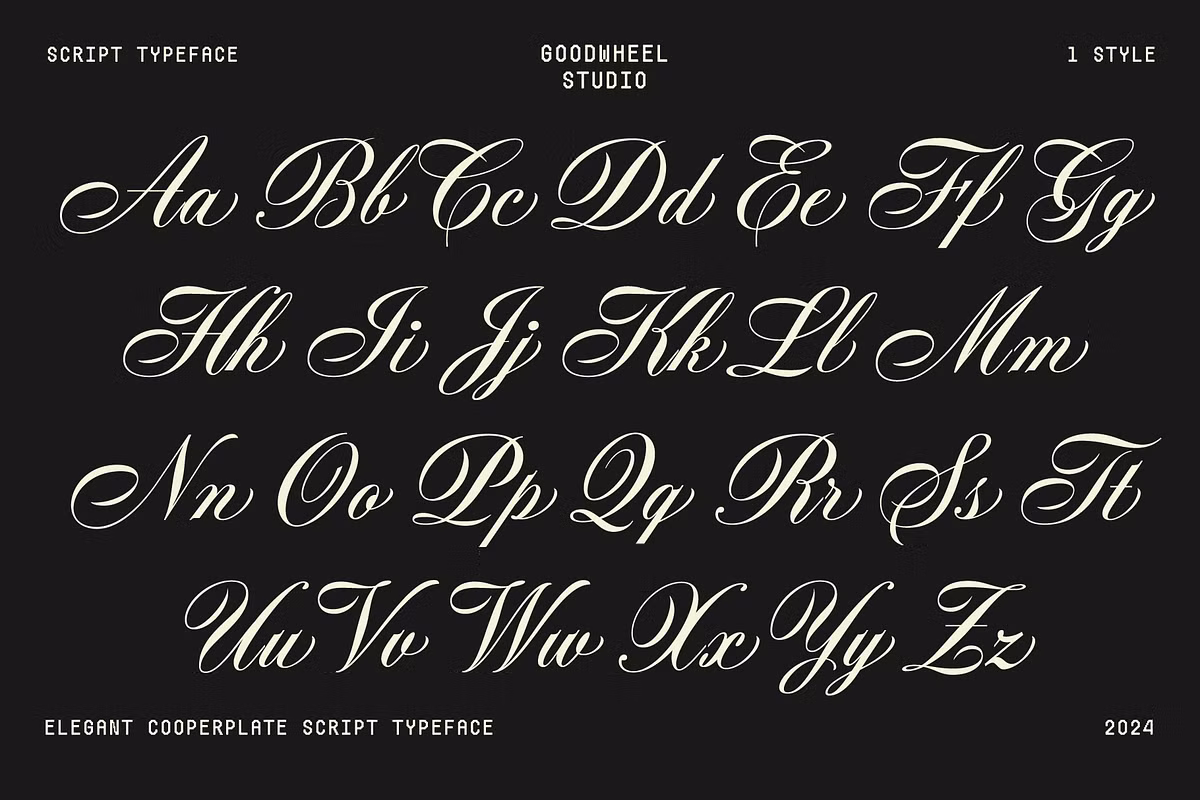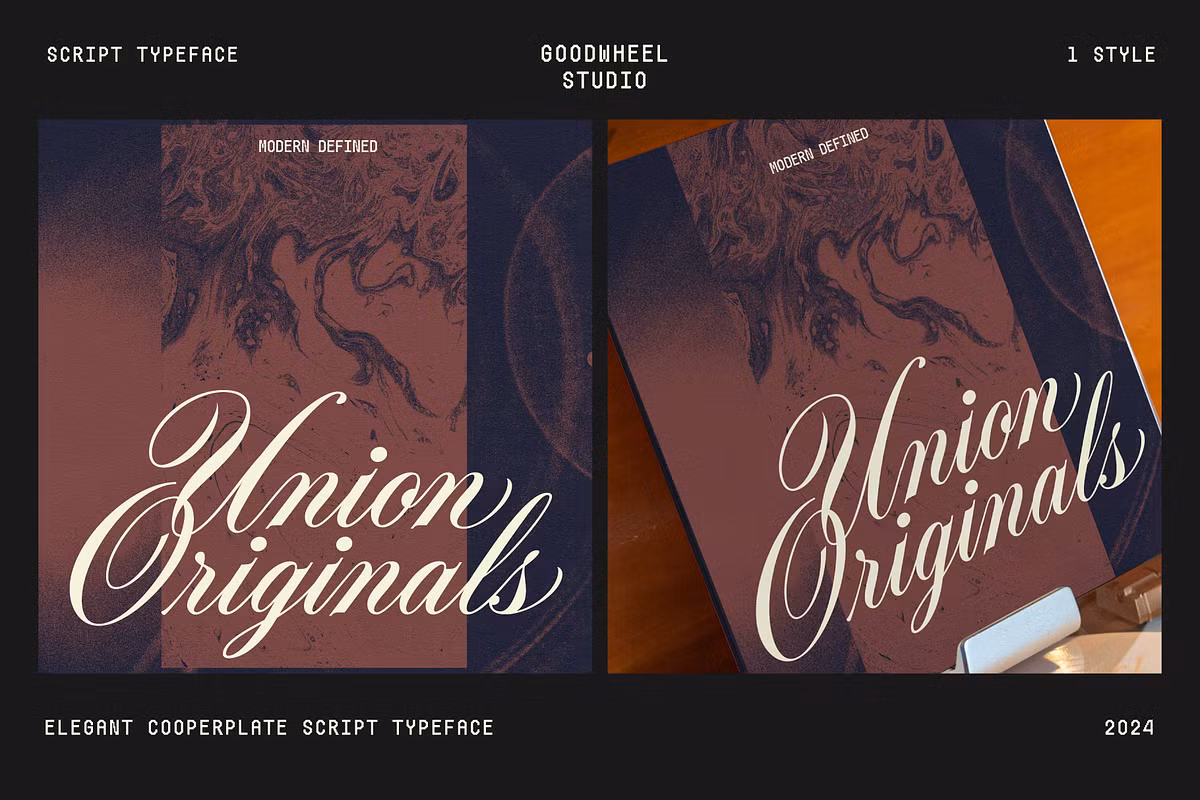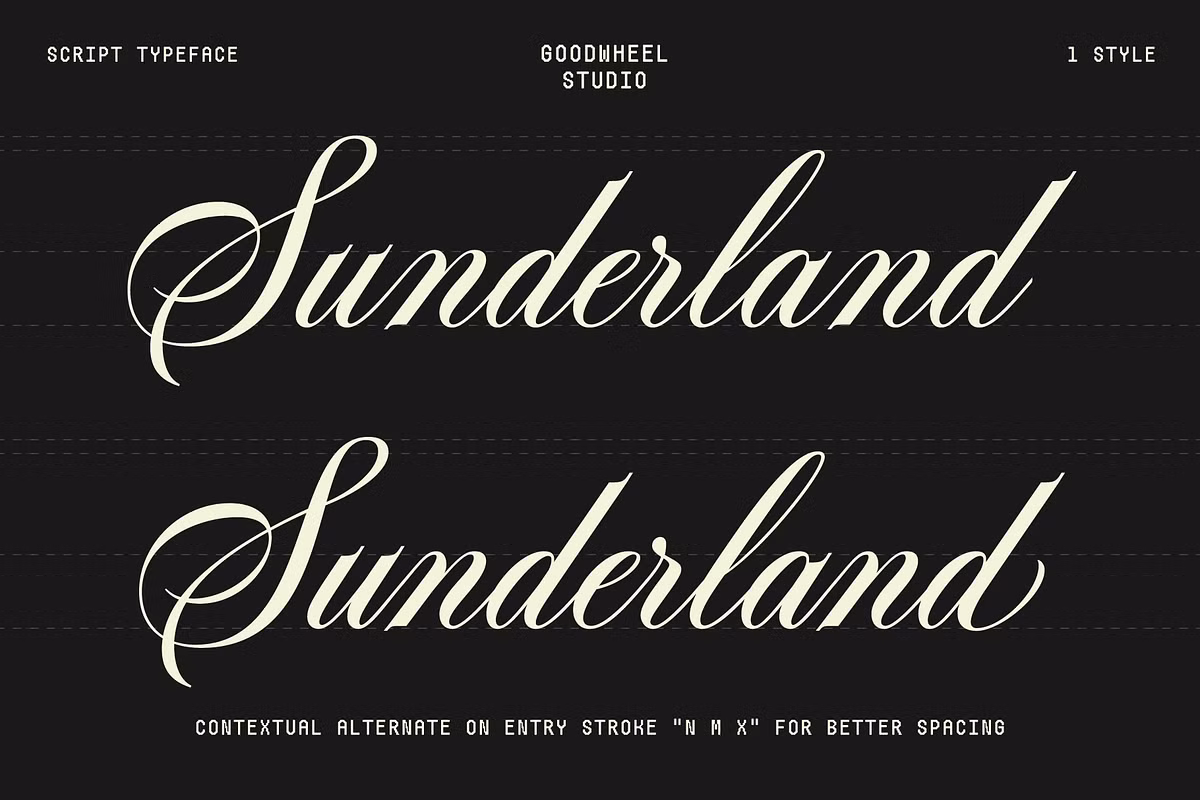
Bantley Script
Bantley Script: Elegant Calligraphy Font for Logos and Branding
Introduction to Bantley Script
The Bantley Script is a really beautiful font that gets its style from old-fashioned Copperplate writing. It’s a fancy typeface that can make your designs and branding look super classy and elegant. If you’re making a logo, writing headlines, or creating branding stuff, Bantley Script is a great choice because it’s both pretty and useful. It can add a touch of sophistication to your projects and make them stand out. With its artistic feel and nice features, Bantley Script is perfect for anyone who wants to make their designs look amazing.
Elegant calligraphy example showcasing Bantley Script
Bantley Script exemplifies elegant calligraphy.
Design Style of Bantley Script
Bantley Script is really special because of its gorgeous swashes and the way the strokes end – it’s just so classy and timeless. When you look at the letters, they flow really nicely together, and the fancy flourishes add a lot of elegance. This makes the font perfect for all sorts of design projects, especially ones where you want to give off a luxurious and sophisticated vibe. That’s why designers love using it to make a big impact and create something that will be remembered.
The font also includes special versions of letters like “n”, “m”, and “x” that change depending on the situation. This helps the letters fit together better and makes the text more pleasant to read, without losing its stylish look. A lot of thought went into designing Bantley Script, making sure each letter works well with the others, so it always looks good no matter how it’s used.
Character Set and Language Support
Bantley Script is a great choice for companies that want to reach people all around the world. It can be used with many different languages – 68 to be exact – because it follows the Windows 1252 encoding rules. This means it’s perfect for global brands and marketing campaigns. You don’t have to worry about whether your message will get lost in translation, because Bantley Script can handle it. It’s like having a universal language that everyone can understand, which is really useful when you’re trying to connect with people from different cultures.
Character set example of Bantley Script font
Bantley Script supports multiple languages and character sets.
With Bantley Script, you can be sure that your message will come across clearly, no matter who you’re trying to reach. The font has a wide range of characters, including regular letters and special ones, which makes it look very stylish. This means you can make designs that really speak to the people you’re trying to reach, and still look classy and sophisticated. With all these options, you can create something truly unique that stands out from the crowd.
Use Cases for Bantley Script
Bantley Script is an exceptional choice for a variety of design projects. Here are some notable use cases:
• Logos: The elegant curves and sophisticated style of Bantley Script make it perfect for crafting memorable logos that stand out in a crowded marketplace.
• Headlines: Use Bantley Script for striking headlines in marketing materials, brochures, or websites to draw attention and convey a sense of luxury.
• Branding: Whether for a wedding, fashion brand, or high-end product, Bantley Script adds an element of refinement and sophistication to any branding project.
• Invitations and Stationery: The font is ideal for formal invitations, greeting cards, and personalized stationery, bringing a touch of elegance to special occasions.
Pairing Suggestions for Bantley Script
To maximize the impact of Bantley Script in your designs, consider pairing it with complementary fonts that enhance its elegance while providing balance. Here are some pairing suggestions:
• Sans Serif Fonts: Pair Bantley Script with a clean sans serif font like Helvetica or Montserrat for a modern touch. The contrast between the flowing script and the structured sans serif creates a visually appealing dynamic.
• Serif Fonts: For a classic feel, combine Bantley Script with a serif font such as Georgia or Merriweather. This pairing maintains a sophisticated look while ensuring readability.
• Using Bantley Script with simple fonts like Avenir or Lato can make your design look modern and stylish. This combination lets the script be the main focus, creating a fresh and contemporary feel.
Examples of font pairings with Bantley Script
Pairing Bantley Script with complementary fonts enhances design.
These combinations don’t just make your designs look better, they also help make them work well and grab people’s attention.
You can use it to make your designs look more beautiful and refined, which is really important if you want to make a good impression. With Bantley Script, you can create all sorts of amazing things, from logos and branding to posters and websites. The possibilities are endless, and it’s up to you to get creative and see what you can come up with.